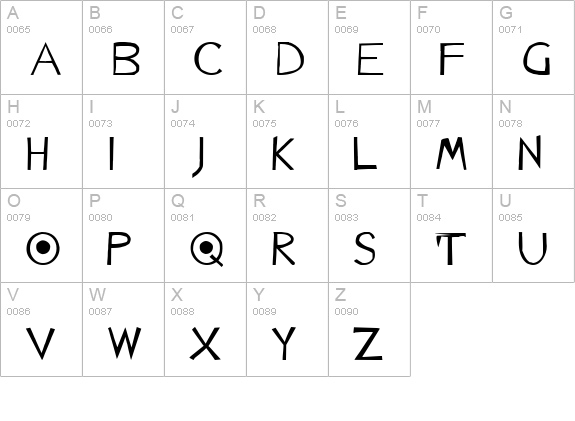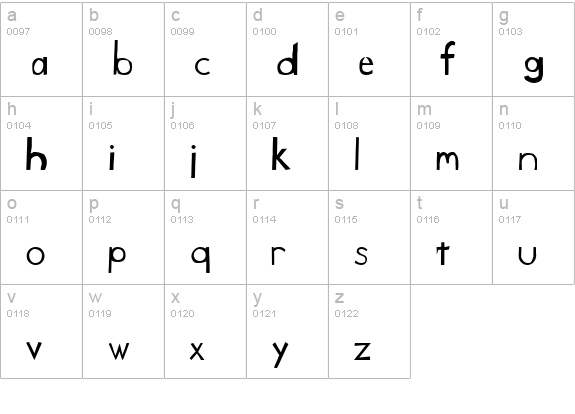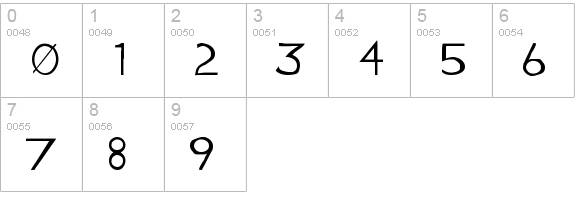
Caduceus font is a stunning and versatile typeface that exudes elegance and sophistication. With its sleek lines and contemporary design, Caduceus is perfect for a wide range of design projects, from branding to editorial design. This font features a unique blend of modern and classic elements, making it a standout choice for any creative project. What sets Caduceus font apart is not only its striking aesthetic but also its accessibility - it is available for free download at FontsMarket.com. This means that you can easily incorporate this beautiful font into your projects without breaking the bank. Whether you're working on a logo, website, or print materials, Caduceus font is sure to elevate your design and make a lasting impression. Download Caduceus font today and unleash your creativity with this exceptional typeface.